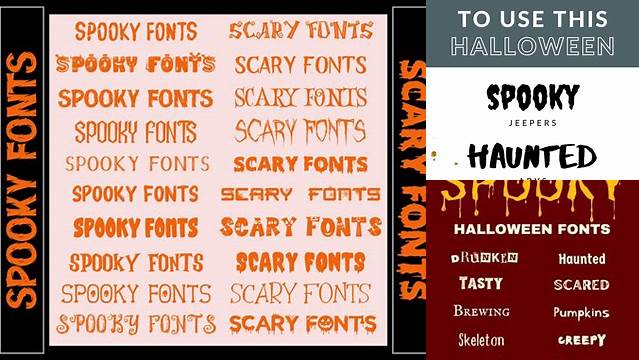
Spooky Fonts: Unleash Horror With Canva Fonts
Hey guys! Ready to dive into the creepy world of horror fonts available right in Canva? Whether you're designing a spine-chilling poster, a haunted house invitation, or a spooky social media post, the right font can make all the difference. Let's explore how you can use Canva to find and utilize the most terrifying typefaces out there. So, grab your popcorn, dim the lights, and let’s get started!
1. Introduction to Horror Fonts on Canva
When it comes to creating a truly terrifying design, the font you choose is just as important as the images and colors you use. Horror fonts have the power to evoke fear, suspense, and a sense of unease, setting the perfect tone for your project. Canva offers a wide variety of horror fonts that can help you achieve the desired effect. From blood-dripping letters to scratchy, hand-drawn styles, there's something for every spooky occasion. In this article, we’ll guide you through the process of finding, selecting, and using the best horror fonts Canva has to offer. We’ll also provide tips on how to pair them with other design elements to create a truly unforgettable and frightening visual experience. So, let's unleash the horror!
2. Finding the Perfect Scary Font in Canva
Navigating Canva's font library can feel like wandering through a haunted maze, but don't worry, we're here to guide you! To find the perfect scary font for your project, start by opening your design and clicking on the text element. This will open the text editing toolbar, where you’ll find the font dropdown menu. Type in keywords like "horror," "scary," "creepy," or "Halloween" to filter the font options. Canva also categorizes fonts by style, so you can browse through the “Display” or “Handwritten” sections for more unique and chilling choices. Experiment with different fonts to see which one best captures the mood you're aiming for. Remember, the right font should enhance your design, not distract from it. Keep an eye out for fonts with irregular lines, distressed textures, and eerie shapes – these are the hallmarks of a great scary font.
3. Top Horror Fonts Available in Canva
Canva is packed with awesome fonts that can add a touch of terror to your designs. Some popular choices include:
- Bangers: A bold, comic-inspired font with a slightly unsettling vibe.
- Creepster: A classic dripping blood font perfect for Halloween.
- Nosferatu: An elegant yet eerie font that evokes a sense of gothic horror.
- Midnight Terror: A scratchy, hand-drawn font that looks like it was written in the dead of night.
- Blacklisted: A grungy font with a distressed texture, ideal for creating a sense of decay and dread.
These are just a few examples, and Canva's library is constantly expanding. Don't be afraid to explore and discover new horror fonts that suit your unique style. Remember to consider the readability of the font, especially if you're using it for body text. A font that's too difficult to read can detract from your message, no matter how scary it looks. Always prioritize clarity and impact.
4. Using Creepster Font for Horror Designs
Ah, Creepster, the quintessential dripping blood font! This typeface is practically synonymous with Halloween and all things spooky. To effectively use Creepster in your designs, consider using it sparingly for headings or titles, as its highly stylized nature can be overwhelming in large blocks of text. Pair it with a cleaner, more legible font for body text to ensure your message is clear. Experiment with different colors to enhance the horror effect. Red, of course, is a classic choice, but don't be afraid to try other dark and ominous hues like deep purple, black, or even a sickly green. Add subtle shadows or glows to make the Creepster font pop and create a three-dimensional effect. Remember, the goal is to create a visual that's both terrifying and visually appealing, so balance the creepiness with good design principles.
5. Implementing Bangers Font in Scary Projects
Bangers is a font that might surprise you with its versatility in scary projects. While it's often used in comic books and playful designs, its bold and slightly distorted appearance can also lend itself well to a horror theme. To make Bangers work for your scary project, try using it in unexpected ways. For example, use it for a vintage horror movie poster or a quirky haunted house invitation. Experiment with layering and overlapping the letters to create a sense of unease and chaos. Pair it with darker colors and distressed textures to amplify the horror effect. Bangers can be particularly effective when used to create a sense of irony or dark humor, adding a unique twist to your scary designs. Don't be afraid to break the rules and push the boundaries of what's expected – that's where the real magic happens!
6. How to Utilize Midnight Terror Font Effectively
Midnight Terror is a font that truly captures the essence of late-night chills and eerie suspense. Its scratchy, hand-drawn style gives it a raw and unsettling feel, perfect for adding a touch of authentic horror to your designs. To utilize Midnight Terror effectively, consider using it for handwritten notes, journal entries, or distressed posters. Its imperfect lines and uneven spacing add to its authenticity, making it look like it was scrawled in the dead of night. Pair it with textures like aged paper or wood to enhance the vintage horror vibe. Experiment with different colors, such as dark brown or faded black, to create a sense of decay and neglect. Midnight Terror is particularly effective when used to create a sense of isolation and dread, making it a great choice for horror stories or psychological thrillers. Remember, the key is to embrace its imperfections and let its raw energy shine through.
7. Nosferatu Font: A Gothic Horror Choice
Nosferatu, named after the iconic vampire film, is an elegant yet eerie font that exudes a sense of gothic horror. Its sharp serifs and dramatic curves evoke a feeling of old-world dread and sophistication. To effectively use Nosferatu in your designs, consider using it for vintage movie posters, book covers, or elegant invitations with a spooky twist. Pair it with luxurious colors like deep red, gold, or black to enhance its regal and ominous feel. Experiment with ornate borders and decorative elements to create a sense of grandeur and gothic opulence. Nosferatu is particularly effective when used to create a sense of mystery and intrigue, making it a great choice for stories about vampires, ghosts, or other creatures of the night. Remember, the key is to embrace its elegance and use it to create a visual that's both beautiful and terrifying.
8. Blacklisted Font for Decay and Dread
Blacklisted is the font you grab when you want to make something look like it's been through hell and back. Seriously, this font screams decay, dread, and despair. It's got that perfect grungy texture that makes it look like it's been sitting in a haunted basement for decades. When you're using Blacklisted, think about how you can amplify that feeling. Use it on posters for abandoned buildings, eerie album covers, or even just to add a touch of horror to your social media posts. Pair it with dark, muted colors and maybe even some subtle grunge textures in the background. Blacklisted is all about creating a sense of unease, so don't be afraid to get a little messy with it.
9. Combining Different Horror Fonts for Maximum Impact
Don't be afraid to mix and match! Sometimes, the most terrifying designs come from combining different horror fonts to create a unique and unsettling effect. For example, you could use Creepster for your title and pair it with Midnight Terror for your body text. Just make sure the fonts complement each other and don't clash. A good rule of thumb is to choose one dominant font for your headings and a simpler, more legible font for your body text. Experiment with different combinations until you find a mix that perfectly captures the mood you're aiming for. Remember, the goal is to create a visual that's both visually appealing and terrifying, so don't be afraid to get creative and push the boundaries of what's expected.
10. Color Palettes to Enhance Horror Fonts
Color is your best friend when it comes to amping up the horror factor of your fonts. Think about it – red screams blood, black whispers of shadows and death, and sickly greens? Perfect for that zombie vibe. But don't stop there! Experiment with deep purples for a gothic feel or muted browns for a more vintage, decaying aesthetic. When choosing a color palette, consider the overall mood you're trying to create. Are you going for classic horror, psychological thriller, or something a bit more campy? Let your color choices guide your audience's emotions and enhance the impact of your horror fonts.
11. Adding Effects to Horror Fonts in Canva
Canva offers a range of effects that can take your horror fonts to the next level. Experiment with shadows, glows, outlines, and distortions to create a more dynamic and unsettling visual. For example, adding a subtle shadow to your Creepster font can make it look like it's dripping off the page. Or, adding a glow to your Midnight Terror font can create an eerie, supernatural effect. Don't be afraid to experiment with different effects and settings until you find something that works for your design. Just remember to use them sparingly – too many effects can make your design look cluttered and distracting. The goal is to enhance the horror effect, not overwhelm it.
12. Creating a Horror Movie Poster with Canva Fonts
Okay, let's get practical! Imagine you're designing a horror movie poster using Canva. First, choose a captivating image that sets the tone for your film. Then, select a horror font that complements the image and conveys the movie's theme. Use a bold and striking font like Creepster or Blacklisted for the title, and a more legible font like Nosferatu or Midnight Terror for the tagline and credits. Experiment with different colors, effects, and layouts to create a visually stunning and terrifying poster that will grab people's attention. Remember to include all the necessary information, such as the movie's title, release date, and cast, but don't let it detract from the overall horror effect. The goal is to create a poster that's both informative and visually compelling, enticing viewers to see your movie.
13. Designing Spooky Invitations Using Canva
Planning a horror-themed party or event? Canva is your go-to for creating spooky invitations that will send shivers down your guests' spines. Start with a dark and ominous background, and then select a horror font that reflects the theme of your event. Use Creepster or Midnight Terror for a classic Halloween feel, or Nosferatu for a more gothic and elegant vibe. Include all the necessary details, such as the date, time, location, and dress code, but present them in a way that's both informative and visually appealing. Add creepy images, textures, and effects to enhance the horror effect. Remember, the goal is to create an invitation that's both inviting and terrifying, enticing your guests to RSVP.
14. Making Halloween Social Media Posts with Scary Fonts
Halloween is the perfect time to unleash your inner horror designer! Canva can help you create spooky social media posts that will grab your followers' attention and boost engagement. Use scary fonts like Creepster, Midnight Terror, or Blacklisted to create eye-catching headlines and captions. Pair them with creepy images, videos, and GIFs to enhance the horror effect. Experiment with different layouts, colors, and effects to create a visually stunning and shareable post. Remember to use relevant hashtags to reach a wider audience. The goal is to create a post that's both informative and visually appealing, enticing your followers to like, comment, and share.
15. Creating Eerie Book Covers with Canva Fonts
Authors, listen up! Your book cover is the first thing readers see, so it's crucial to make a lasting impression. Canva's horror fonts can help you create eerie and captivating book covers that will draw readers in and leave them wanting more. Choose a font that reflects the genre and tone of your book. Use Nosferatu or Midnight Terror for gothic horror stories, or Blacklisted for thrillers with a gritty edge. Pair your font with a captivating image and a well-designed layout to create a cover that's both visually stunning and informative. Remember to include the title, author's name, and a compelling tagline. The goal is to create a cover that accurately represents your book and entices readers to pick it up.
16. Designing Haunted House Flyers with Canva
Promote your haunted house with flyers that scream horror! Canva has everything you need to create terrifying flyers that will draw crowds and send shivers down their spines. Use scary fonts like Creepster, Midnight Terror, or Blacklisted to create eye-catching headlines and captions. Pair them with creepy images, textures, and effects to enhance the horror effect. Include all the necessary details, such as the location, dates, and times, but present them in a way that's both informative and visually appealing. Add a map or QR code to make it easy for people to find your haunted house. The goal is to create a flyer that's both informative and terrifying, enticing people to visit your haunted attraction.
17. Typography Tips for Horror Designs
Okay, so you've picked the perfect horror font, but now what? Typography is all about how you arrange and style your text to make it readable and visually appealing. When it comes to horror designs, there are a few key tips to keep in mind. First, pay attention to kerning and tracking – the space between your letters and words. Too much or too little space can make your text look awkward and difficult to read. Second, consider your line height – the space between lines of text. A good line height will make your text flow smoothly and prevent it from feeling cramped. Finally, don't be afraid to experiment with different sizes, weights, and styles to create visual interest and emphasize key words or phrases.
18. Best Font Pairings for Horror Themes
Even the scariest font needs a friend! Pairing horror fonts with the right supporting typefaces can elevate your design and create a truly unsettling effect. For example, you might pair the dripping menace of Creepster with a clean, sans-serif font like Montserrat to balance the horror with readability. Or, try pairing the gritty Blacklisted with a vintage typewriter font like Special Elite to create a sense of decay and history. The key is to choose fonts that complement each other without competing for attention. A good rule of thumb is to use one dominant horror font for headings and a simpler, more legible font for body text. Experiment with different combinations until you find a pairing that perfectly captures the mood you're aiming for.
19. Free vs. Pro Horror Fonts in Canva
Canva offers both free and pro horror fonts, each with its own advantages. Free fonts are a great option for beginners or those on a budget, but they may be less unique or versatile than pro fonts. Pro fonts, on the other hand, offer a wider range of styles, weights, and features, giving you more creative control over your designs. If you're serious about creating professional-quality horror designs, it may be worth investing in a Canva Pro subscription. However, there are plenty of great free horror fonts available that can help you get started. Experiment with both free and pro options to see which ones best suit your needs and budget.
20. Optimizing Horror Fonts for Print
Printing your horror designs? Make sure your fonts are optimized for print to avoid any unexpected surprises. Before sending your design to the printer, check the font size and resolution to ensure that it will be legible and crisp. Avoid using extremely thin or intricate fonts, as they may not print well. If you're using a horror font with a distressed texture, make sure the texture is not too subtle, or it may disappear when printed. Finally, always proofread your design carefully to catch any typos or errors before printing. The goal is to create a printed design that accurately reflects your vision and effectively conveys your message.
21. Horror Font Trends in 2024
Stay ahead of the curve by keeping up with the latest horror font trends. In 2024, we're seeing a resurgence of vintage and gothic-inspired horror fonts, as well as a growing interest in hand-drawn and distressed typefaces. Designers are also experimenting with unexpected font pairings and using color and effects to create more dynamic and unsettling visuals. To stay on top of the latest trends, follow design blogs, social media accounts, and online communities dedicated to typography and horror design. The goal is to stay informed and inspired, so you can create fresh and innovative horror designs that stand out from the crowd.
22. Creating Animated Horror Typography in Canva
Want to take your horror designs to the next level? Try animating your typography in Canva! Canva offers a range of animation tools that can bring your fonts to life and create a more engaging and dynamic visual. Experiment with different animation styles, such as fade, slide, pop, and pan, to create a unique and unsettling effect. You can also animate individual letters or words to emphasize key messages or create a sense of suspense. Remember to use animation sparingly – too much animation can be distracting and overwhelming. The goal is to enhance the horror effect, not detract from it.
23. Using Horror Fonts for Branding
Believe it or not, horror fonts can be used for branding, especially if your brand has a dark or edgy aesthetic. Consider using a horror font for your logo, website, or marketing materials to create a memorable and impactful brand identity. Just make sure the font aligns with your brand values and target audience. A horror font might not be appropriate for a children's clothing brand, but it could be perfect for a haunted attraction or a horror movie production company. The key is to use horror fonts strategically and intentionally to create a brand identity that's both unique and effective.
24. The Psychology of Horror Fonts
Ever wonder why certain fonts make you feel uneasy? It's all about psychology! Horror fonts often use visual cues that trigger our primal fears, such as jagged edges, dripping blood, and distorted shapes. These elements can evoke feelings of danger, unease, and suspense, making them perfect for creating a horror effect. By understanding the psychology of horror fonts, you can use them more effectively to create designs that truly scare and captivate your audience. Remember, the goal is to tap into our shared human experiences and create visuals that resonate on a deep emotional level.
25. Mastering Kerning and Tracking with Horror Fonts
Even the scariest font can look awkward if the kerning and tracking are off. Kerning refers to the space between individual letters, while tracking refers to the overall spacing between all the letters in a word or phrase. Mastering kerning and tracking is essential for creating legible and visually appealing typography. When working with horror fonts, pay close attention to the spacing between letters, as uneven spacing can detract from the overall horror effect. Experiment with different kerning and tracking settings until you achieve a balance that's both legible and visually striking. Remember, the goal is to create typography that enhances the horror effect, not detract from it.
26. Creating a Drip Effect with Fonts in Canva
Want to make your fonts look like they're dripping with blood or slime? Canva makes it easy to create a drip effect with fonts! Simply choose a font that has a bold and irregular shape, such as Creepster or Blacklisted, and then use Canva's effects tools to add a shadow or outline that extends below the letters. You can also use the draw tool to add custom drips and splatters for a more realistic effect. Experiment with different colors and textures to create a variety of drip effects, from blood and slime to goo and ooze. The goal is to create a drip effect that's both visually striking and believable.
27. Adding Texture to Horror Fonts in Canva
Texture can add depth and dimension to your horror fonts, making them look more realistic and unsettling. Canva offers a range of texture options that can be applied to fonts, such as grunge, distressed, and grainy textures. You can also upload your own custom textures to create a unique and personalized horror effect. Experiment with different textures and blending modes to create a variety of effects, from aged and weathered to rough and gritty. The goal is to create a texture that enhances the horror effect and adds visual interest to your design.
28. Using Font Combinations to Tell a Story
Fonts aren't just for displaying text – they can also be used to tell a story! By combining different horror fonts and typographic styles, you can create a visual narrative that captures the essence of your horror theme. For example, you might use a gothic font for the title to evoke a sense of old-world dread, and then use a more modern font for the body text to create a contrast between the past and the present. You can also use different font sizes, weights, and colors to emphasize key words or phrases and create a sense of suspense. The goal is to use fonts to create a visual story that engages and captivates your audience.
29. Advanced Canva Tips for Horror Typography
Ready to take your horror typography skills to the next level? Here are a few advanced Canva tips to help you create truly terrifying designs:
- Use the masking tool to create unique and unexpected font effects.
- Experiment with different blending modes to create layered and textured typography.
- Create custom font effects using the draw tool.
- Use the animation tools to bring your fonts to life.
- Collaborate with other designers to get feedback and inspiration.
By mastering these advanced techniques, you can create horror typography that's both visually stunning and technically impressive.
30. Where to Find Inspiration for Horror Font Designs
Stuck in a creative rut? Don't worry, inspiration is all around you! Here are a few places to find inspiration for your horror font designs:
- Browse horror movie posters, book covers, and album covers.
- Follow design blogs, social media accounts, and online communities dedicated to typography and horror design.
- Visit museums, art galleries, and antique shops.
- Attend horror conventions and events.
- Look around you – inspiration can be found in everyday life!
By actively seeking out inspiration, you can stay creative and innovative, and create horror font designs that are both unique and memorable. Remember guys, have fun with it and let your creativity flow!